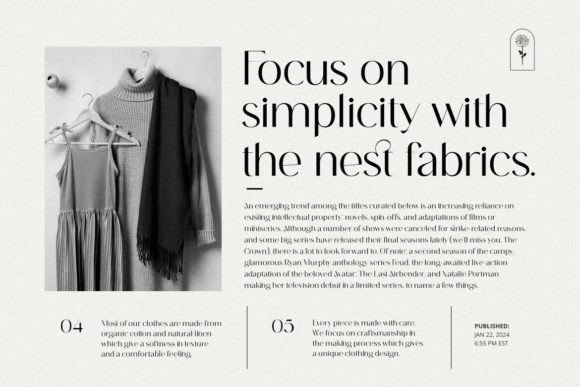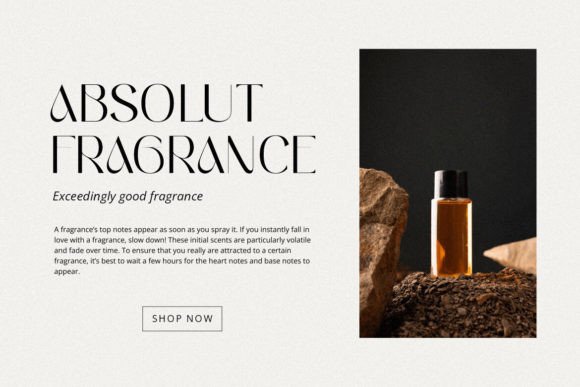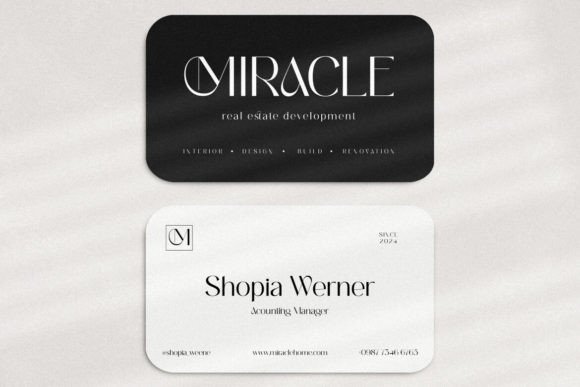
Introduction to Megarin Font
Have you ever stumbled upon a font that instantly sparks a wave of creativity, making you envision a romantic getaway or a luxurious wedding? For designers, this moment is priceless – it’s the spark that ignites a new project, and for many, it’s the Megarin Font that sets their imagination ablaze.
As a design resource, Megarin Font is a treasure trove of elegance and sophistication, perfect for a wide range of creative projects. With its unique blend of modern and luxury styles, this high-quality font is an ideal choice for designers seeking to add a touch of class to their work. Whether you’re crafting a wedding invitation, designing a logo, or creating a print template, Megarin Font is sure to elevate your design to new heights.
What’s more, this versatile font comes with a range of features, including uppercase and lowercase letters, punctuation, symbols, numerals, ligatures, and stylistic alternates, making it a valuable addition to any designer’s toolkit. And the best part? Megarin Font can be downloaded for free, complete with a transparent background, making it easy to integrate into your designs.
Megarin Font
- High-quality design: This font features high-quality design elements, including intricate details and smooth lines, making it perfect for various creative projects.
- Large character set: The Megarin Font includes a large character set, covering a wide range of languages, including Latin, Cyrillic, and Greek alphabets.
- Unique characteristics: The Megarin Font features unique characteristics, including its modern and elegant design style, making it an excellent choice for creative projects that require a touch of sophistication.
Honest Review: Megarin Font
I recently came across the Megarin Font and was excited to give it a try for my current creative project. The free download was a major plus, as it allowed me to test the font without committing to a purchase.
First impressions were great – the font is high quality and has a sleek, modern design. The transparent background made it easy to work with, allowing me to layer it seamlessly with other design elements.
- What works well: ✨ The Megarin Font is highly versatile and can be used for a wide range of creative projects, from logos to typography-heavy designs. The font’s clean lines and modern aesthetic make it a great choice for any design resource.
- What works well: ✨ The font’s OpenType features make it easy to add flourishes and variations to the text, adding an extra layer of depth and interest to the design.
One potential limitation I encountered was the lack of bold and italic font weights. While the regular font is excellent, it would be great to see more options available for added flexibility.
Overall, I’m impressed with the Megarin Font and would definitely recommend it to other designers. Its high quality, versatility, and ease of use make it a valuable addition to any design resource library.
Megarin Font
The Megarin Font is suitable for a variety of projects, including logos, brochures, business cards, and social media graphics. Its transparent background makes it easy to use with any design element.